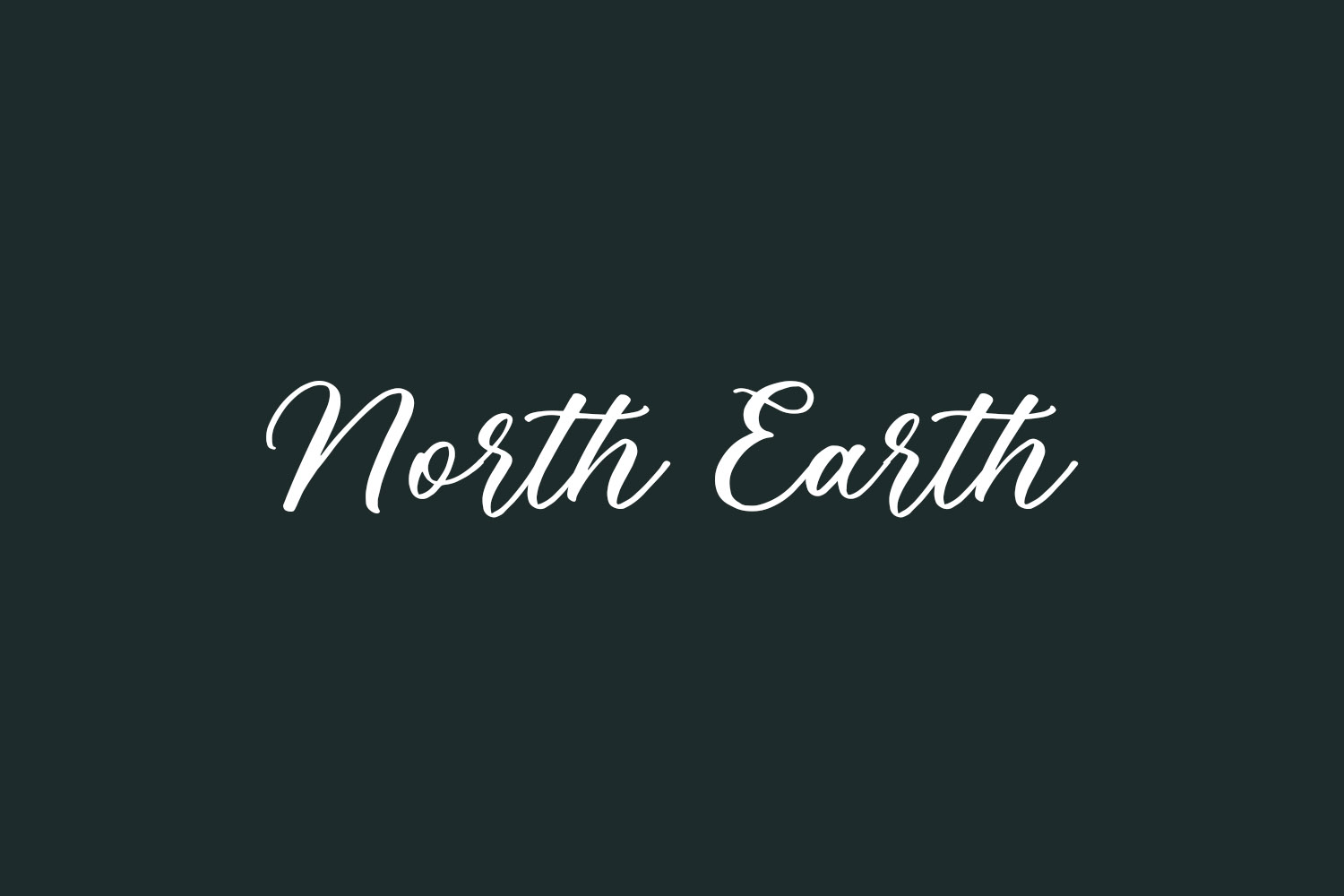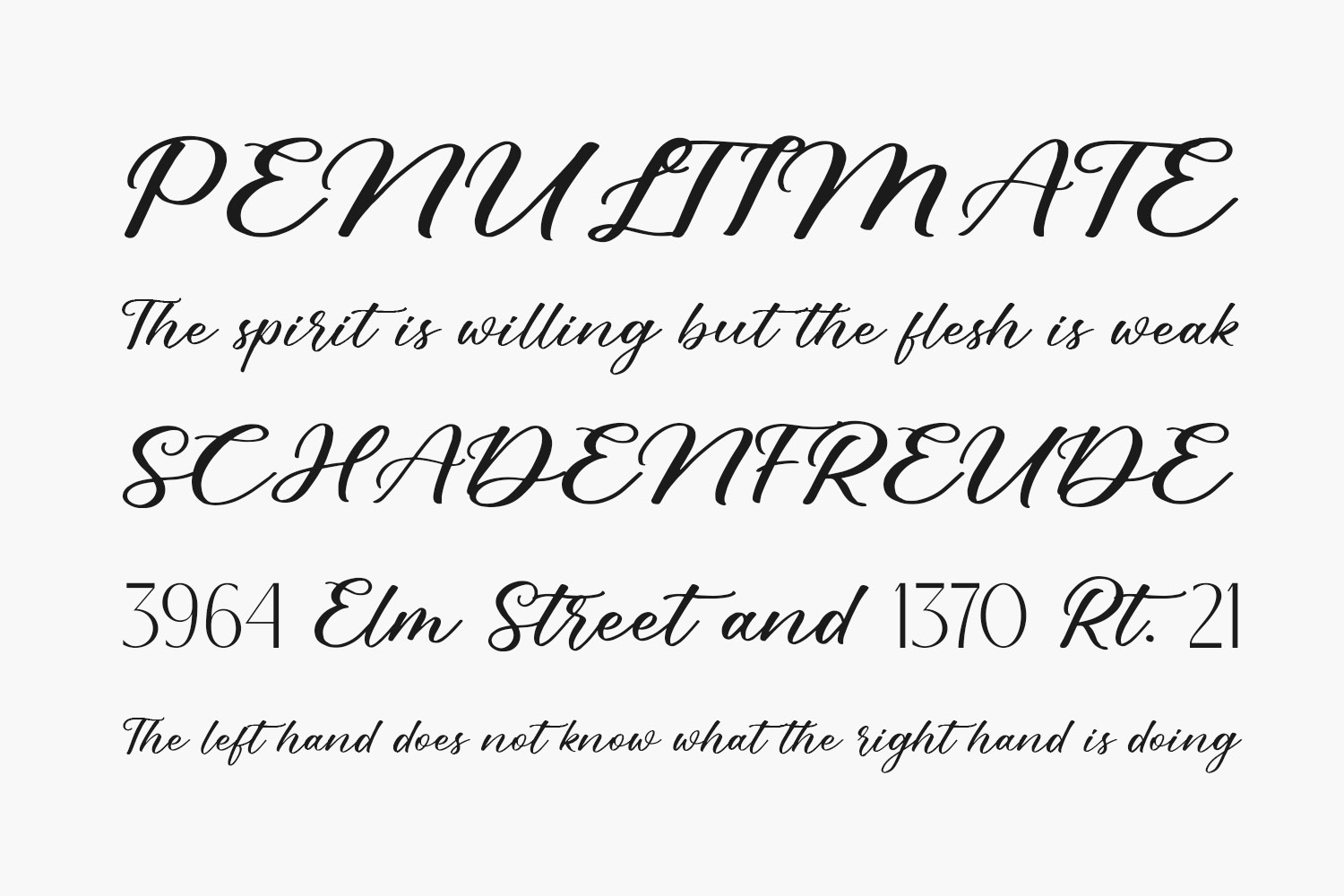
North Earth Free Font is a beautiful, flowing, and well balanced script font. This versatile script font has a wide spectrum of applications ranging from greeting cards to headlines and is guaranteed to add a romantic feel to your next project. North Earth Free Font was designed by Vilogsign and is free for personal use only. Please purchase the full version for commercial use.
Designed by Vilogsign